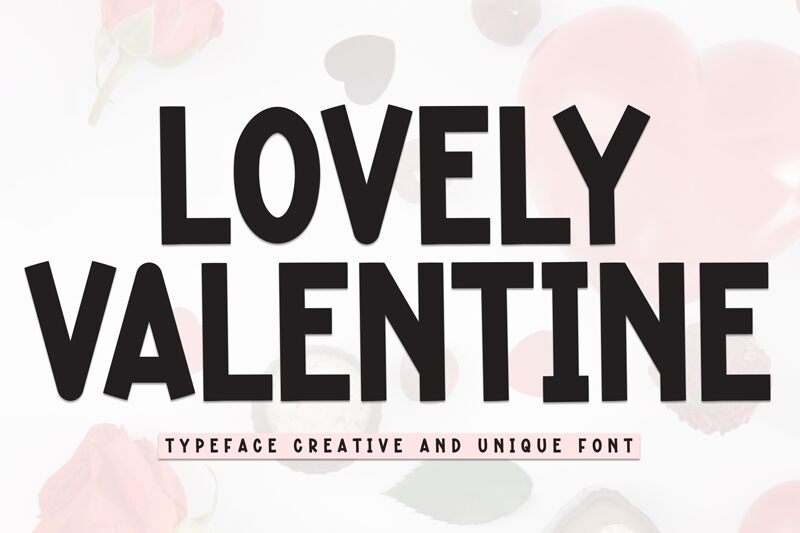
Lovely Valentine font by Scratchones is a free font with a casual yet bold style. This contemporary typeface features a friendly aesthetic with uniform strokes that provide a structured and geometric appearance. With its modern feel and impactful look, the font conveys a combination of square-like and cartoon characteristics in a balanced design.
Lovely Valentine is an inviting text style suitable for comic texts, video games, board games, cartoon show titles, book covers, posters, and magazine covers. Plus, it is great for various print media, packaging designs, and advertising.